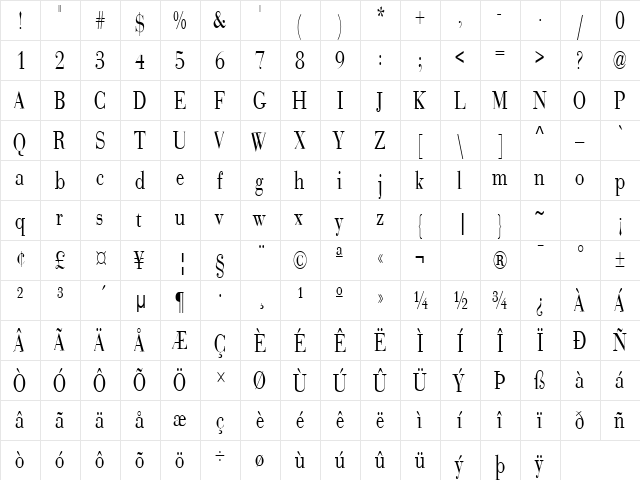
SweezCondensed Regular
Design Context for SweezCondensed Typeface
SweezCondensed is a composed and adaptable typeface that performs quietly and consistently across a wide range of design contexts. The condensed width makes it efficient for tight spaces without sacrificing legibility.